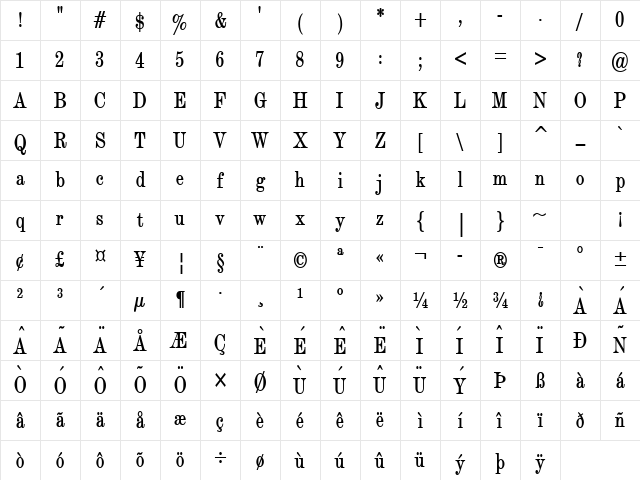
Devine Condensed Bold Free Font
Devine Condensed Bold
Devine Condensed Family
Design Context for Devine Condensed
Devine Condensed is a composed and adaptable typeface that performs quietly and consistently across a wide range of design contexts. Its bold stroke weight gives it real presence on the page. Its narrow stance lets it pack a punch even in space-constrained designs.
Pro Tip: Use Devine Condensed in both headline and body roles to test its range before committing to a single application.